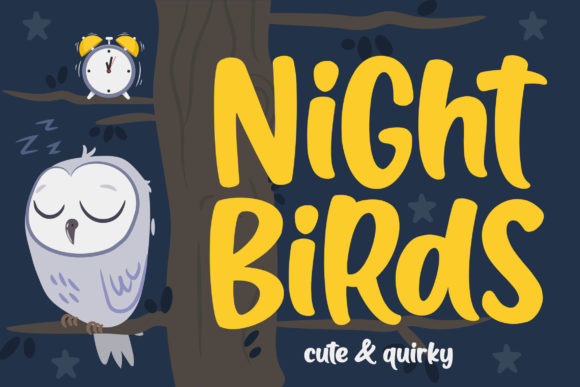
Prepare to be enchanted by Night Birds Font, the whimsical and playful display font that will ignite your imagination and transport you to a world of wonder and joy! Designed by the talented Orenari, this font is a symphony of creativity, perfect for capturing the innocent charm of childhood and the magic of storytelling.
With its cheerful and colorful appearance, Night Birds Font is guaranteed to make your designs shine. Its simple yet captivating letterforms dance across the page, creating a sense of movement and energy that is sure to grab attention. Whether you're designing invitations, posters, greeting cards, or children's books, Night Birds Font is the perfect choice for adding a touch of whimsy and enchantment.
Immerse yourself in the world of Night Birds Font and let your creativity soar. Its playful nature will inspire you to create designs that are not only visually appealing but also evoke a sense of joy and wonder in your audience. Unleash your imagination and let Night Birds Font guide you on a journey of creativity and self-expression.